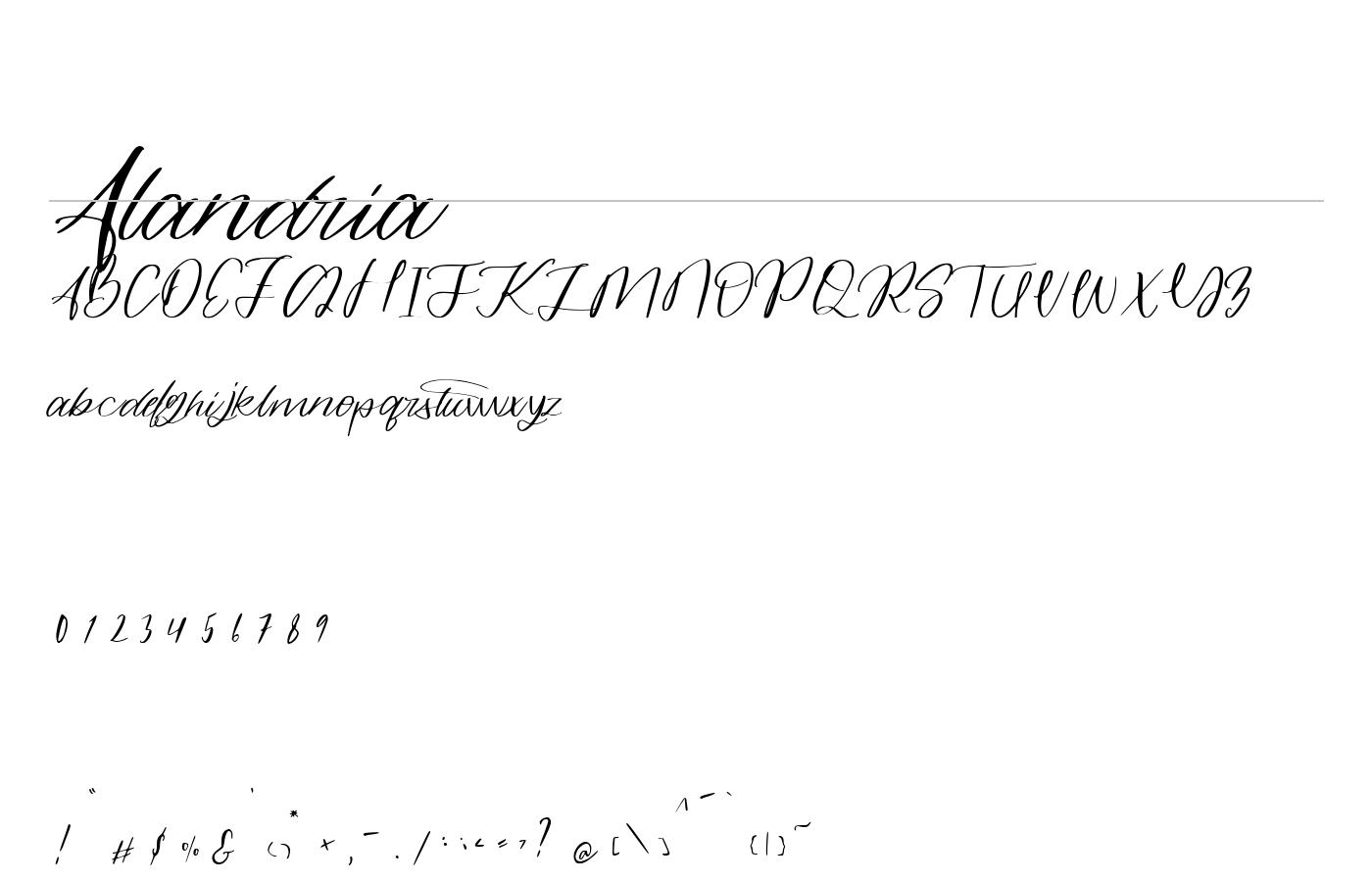
Alandria is an elegant, delicate script font with fine, flowing strokes that evoke a handwritten calligraphy style. Its slender and slightly slanted letterforms give it a graceful and personal feel, making it ideal for invitations, branding, and editorial projects that seek a refined and sophisticated touch. This font works best in decorative uses where a classy, intimate atmosphere is desired.
Alandria Font
About Alandria Font